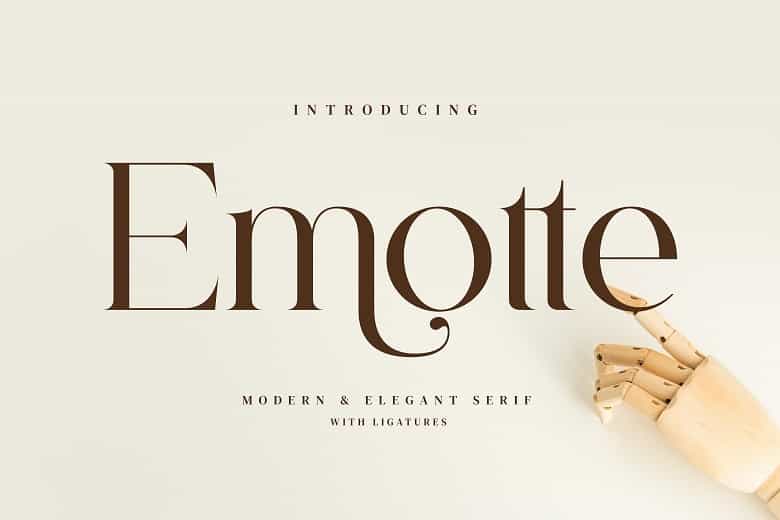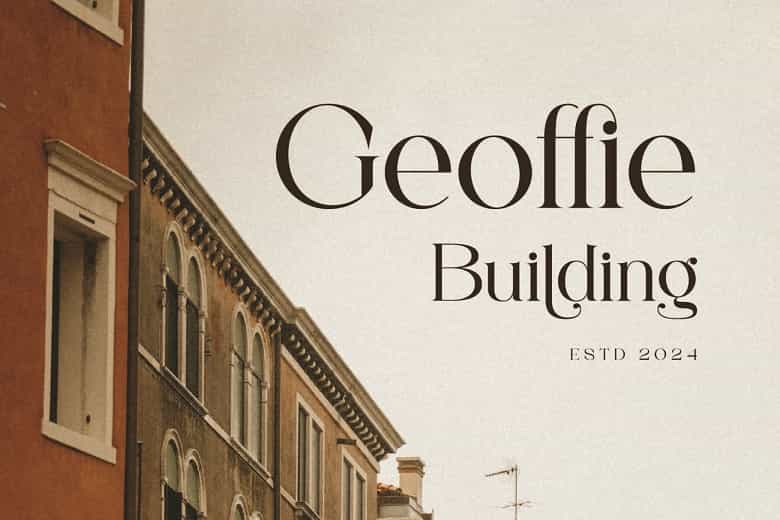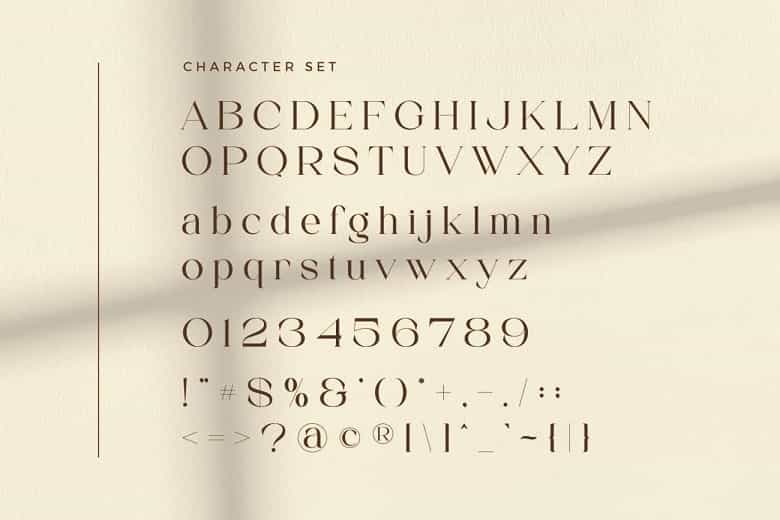
Emotte is a modern and elegant serif font, designed based on a minimalist icon that is suitable for various uses in the design of templates, brochures, videos, advertisement branding, logos and more.